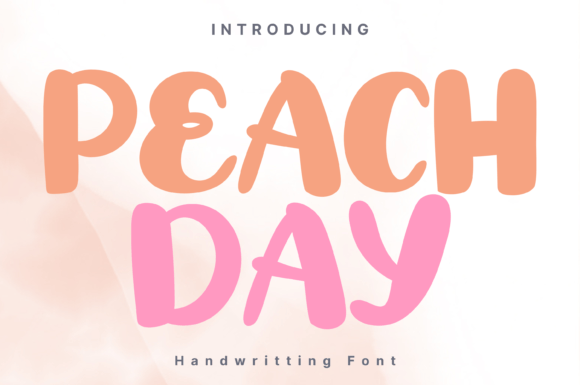
Looking for the perfect font to elevate your creative projects? Look no further than Peach Day Font, a whimsical and clean handwritten font that is guaranteed to captivate your audience. Created by AchiArt, this font is specifically designed to meet the needs of users looking for the best fonts for body type.
With its unique script style, Peach Day Font adds a touch of elegance and charm to any project. Whether you're designing a logo, creating a website, or crafting beautiful invitations, this font is the perfect choice to make your text pop. Its handwritten appearance gives it a personal and authentic feel, instantly drawing attention and making a lasting impression.
What sets Peach Day Font apart from its competitors is its incredible versatility. It seamlessly blends with a wide range of design themes, making it suitable for various industries and purposes. From fashion and beauty to food and lifestyle, this font is a perfect fit for any project. Whether you're going for a playful and whimsical look or a sophisticated and elegant aesthetic, Peach Day Font has got you covered.
But it's not just about aesthetics; Peach Day Font is also optimized for readability. Its clear and legible characters ensure that your message gets across effortlessly, keeping your readers engaged and immersed in your content. No more struggling to decipher complicated fonts – Peach Day Font makes reading a breeze.
But don't just take our word for it. Let your creative ideas come to life with Peach Day Font and witness how it transforms your projects into works of art. Its eye-catching appeal and emotional connection will leave a lasting impression on your audience, creating a memorable experience that they won't soon forget.